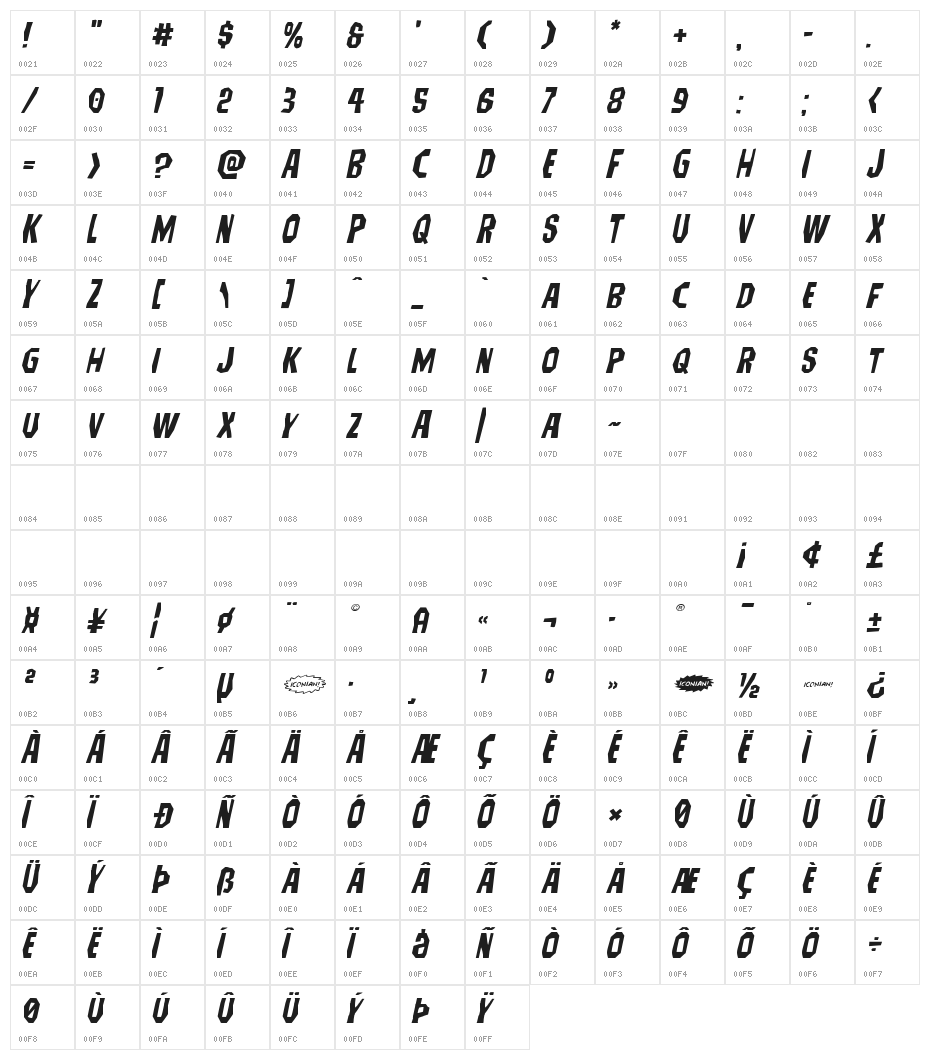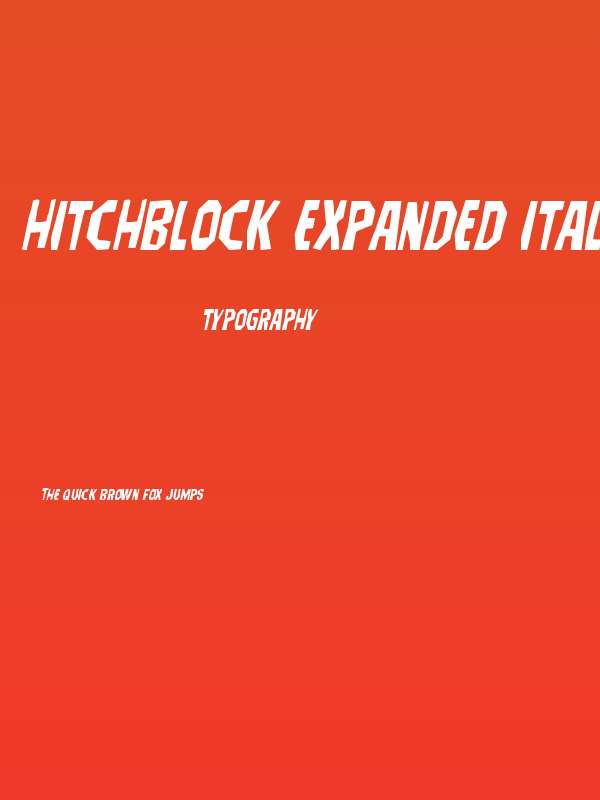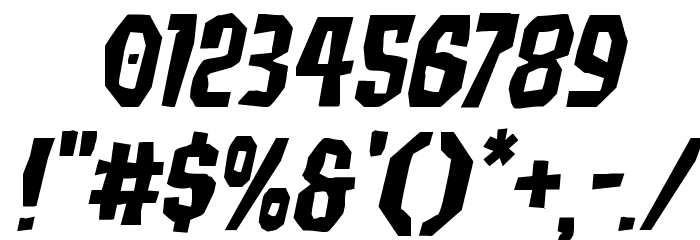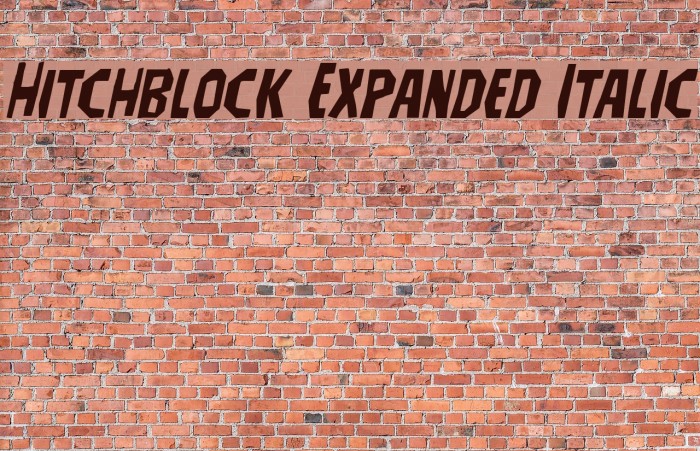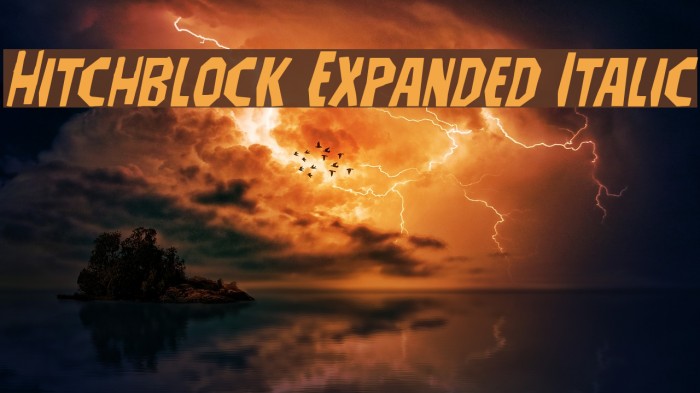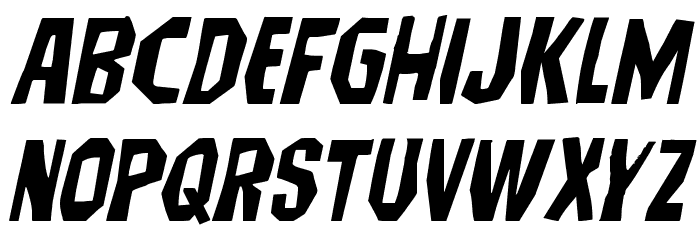
Hitchblock Expanded Italic Font
Hitchblock Expanded Italic Description
This font features a bold and dynamic style with an expanded and italicized form. The characters are angular and geometric, giving a sense of movement and energy. The uppercase letters are particularly striking, with sharp edges and a slightly slanted orientation that enhances the italic effect. The numbers and special characters maintain the same bold and angular aesthetic, ensuring consistency across all glyphs. This font is designed to capture attention and convey a sense of urgency or excitement.